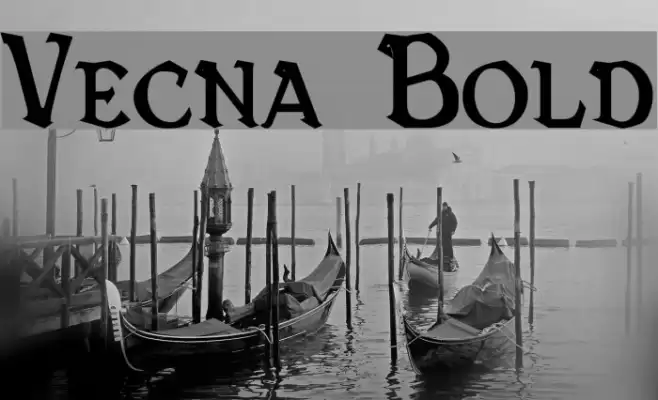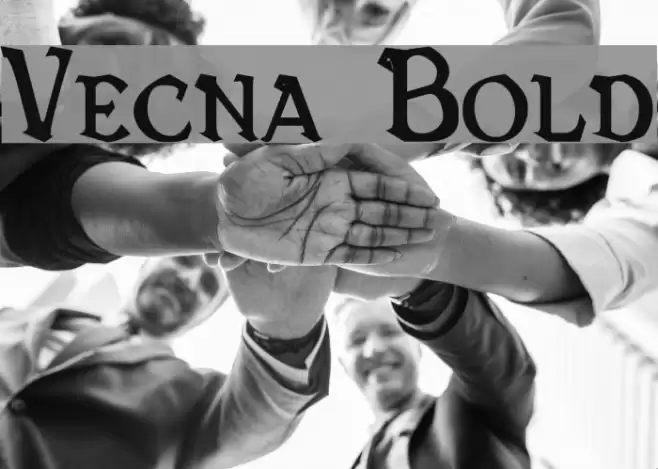
Vecna Bold Font
Vecna Bold Description
This font features a bold and dramatic style with sharp, angular serifs that give it a distinctive and authoritative appearance. The characters are well-defined with a strong presence, making it ideal for attention-grabbing headlines or titles. The uppercase and lowercase letters maintain a consistent style, with slightly exaggerated curves and edges that add to its unique character. The numerals are equally bold, ensuring readability and impact. Special characters are designed to match the overall aesthetic, providing a cohesive look across all text elements.
A bold, angular serif font with a dramatic and authoritative style from Uncategorized fonts.
- Proposed Projects: Ideal for use in branding, posters, book covers, and any project requiring a strong, impactful typeface.